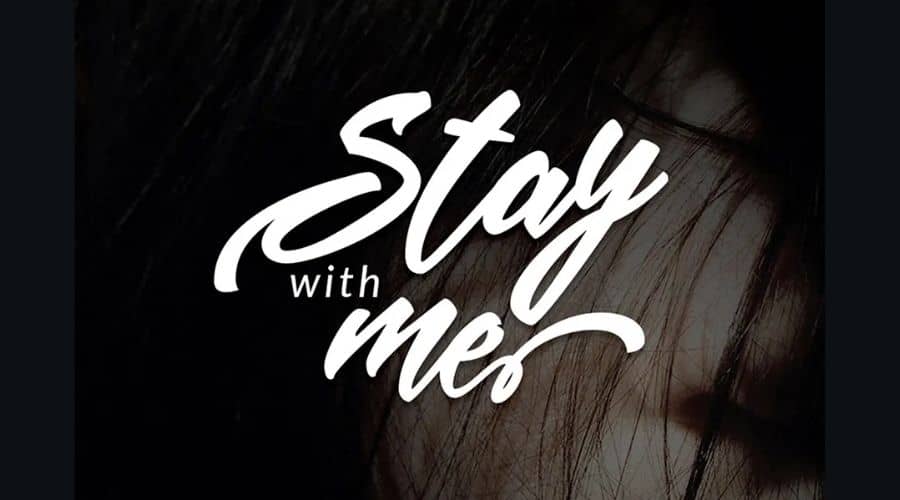
Mekar Script Font
Mekar Script is a brush and hand-lettered script typeface. Showup typefoundry created and published the font. On November 15, 2017, the font was made public. You can use Mekar Script to create bespoke dynamic text. Stylistic Set, Initial and terminal, and ligatures can be accessed by turning on Stylistic Set, Initial and terminal as well as ligatures in Photoshop, Adobe Illustrator, Adobe InDesign, or through a panel of glyphs in Adobe Illustrator, Photoshop CC, and Adobe InDesign. To achieve the tex
t with the layout of your dreams, let’s change from the standard character to a character alternative. In addition to glyphs, punctuation, and numbers, Mekar Script is multilingual. You can mix and match mekar’s 291 glyphs to fit your design. Ligature, Contextual alternatives, stylistic alternates, stylistic sets, and swash are among the OpenType properties used to classify alternative characters. Adobe Illustrator and Adobe InDesign, as well as other OpenType-savvy tools, may access it. Mekar.ttf, Mekar.otf, Mekar(v1).ttt, Mekar(v1).otf, and Manual pdf are the major files for this typeface.
The font is ideal for logos, printed quotes, invitations, cards, product packaging, headlines, and any other design project that you can think of. Mekar Script is also ideal for branding projects, homeware designs, product packaging, and as a classy text overlay on any backdrop image. The font looks good with almost every color.